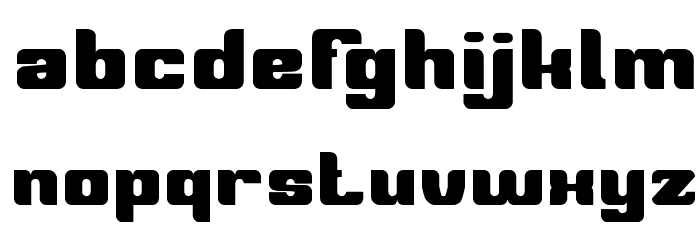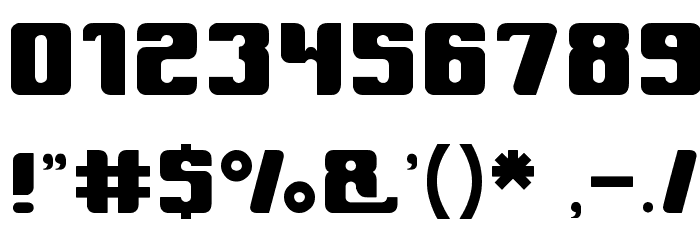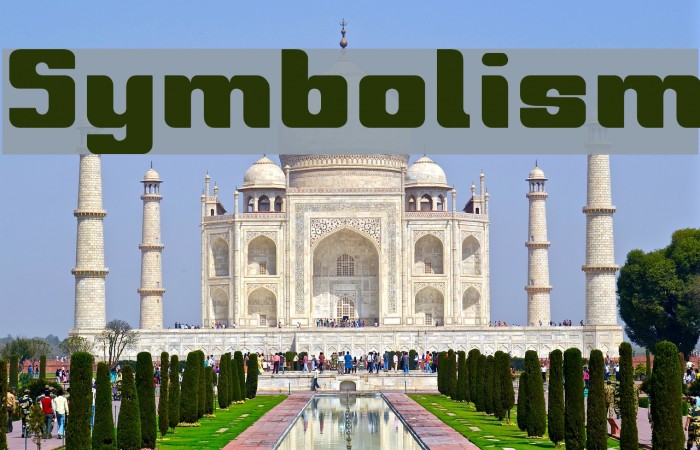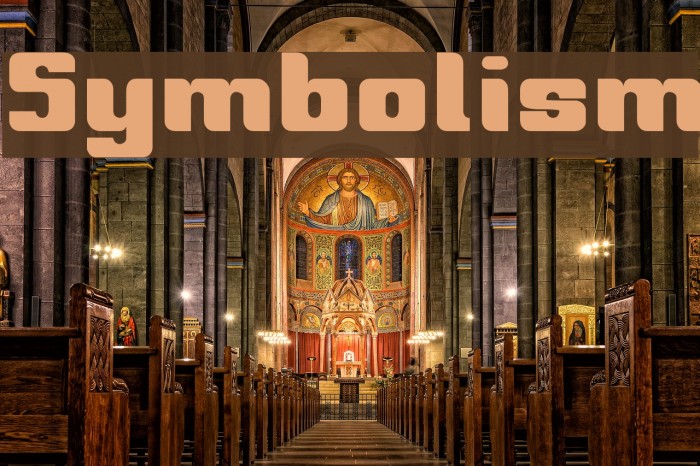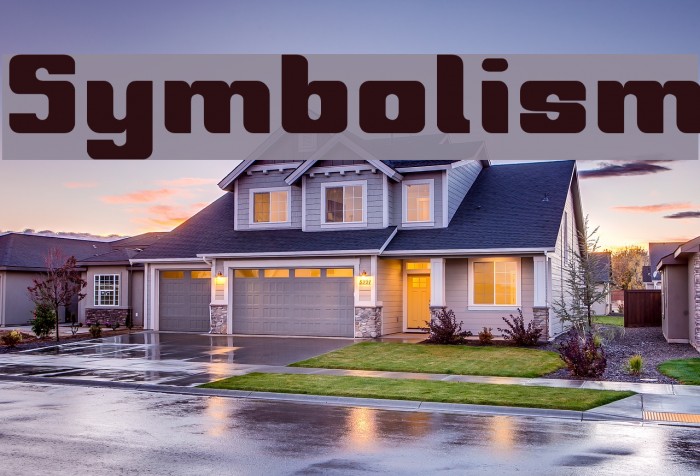
Symbolism Font
This font features a bold and robust design with a strong presence. The characters are blocky and geometric, with rounded edges that soften the overall look. The uppercase letters are uniform in height, while the lowercase letters maintain a consistent baseline, providing a cohesive appearance. The numerals are similarly bold and easy to read, making them suitable for impactful displays. Special characters are distinct and maintain the same bold style, ensuring consistency across all glyphs. The font's design is modern and eye-catching, ideal for projects that require a strong visual impact.
A bold, geometric font with rounded edges and a modern style.
- Proposed Projects: Ideal for branding, posters, headlines, and any design requiring a strong, modern aesthetic.